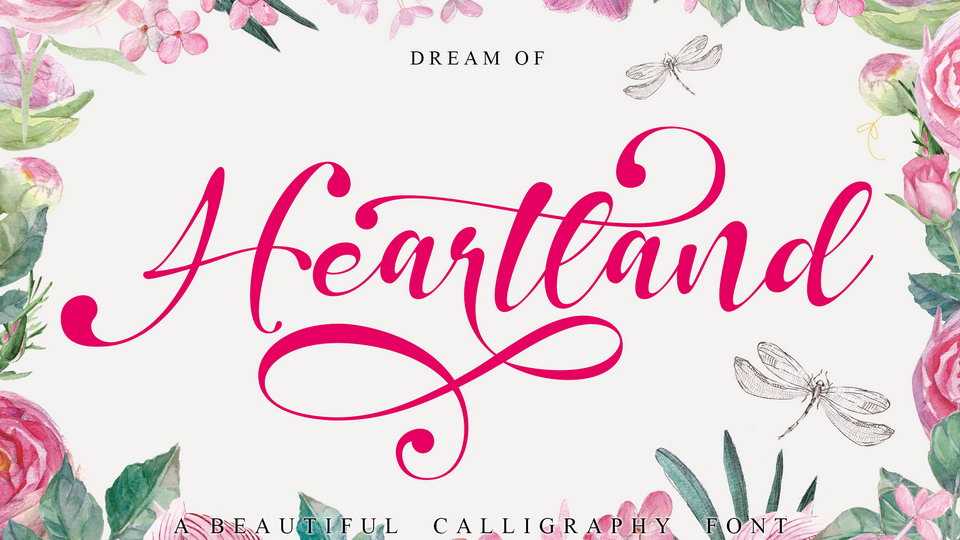
Download Dream of Heartland font, a stunning handwritten script. When you had a craft project, wedding project, modern clothing, or a company that need beautiful font for advertisement, Dream of Heartland is right for you.
Designer: Typecoconut